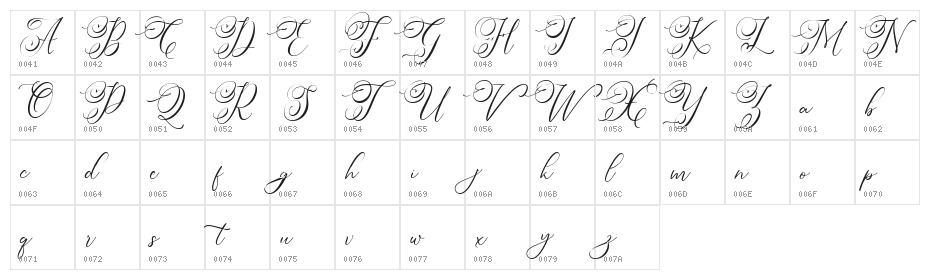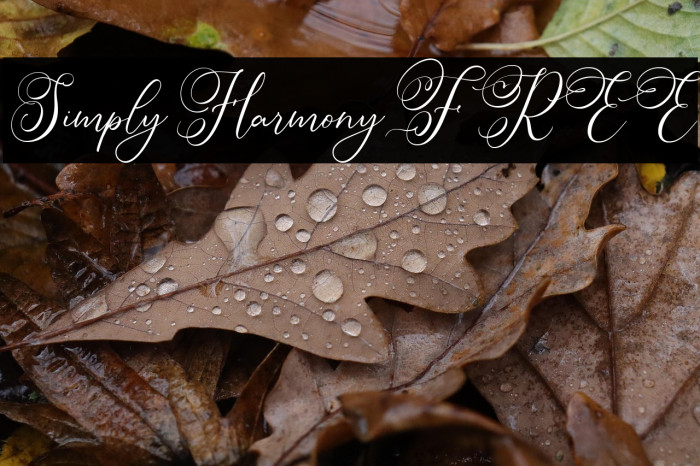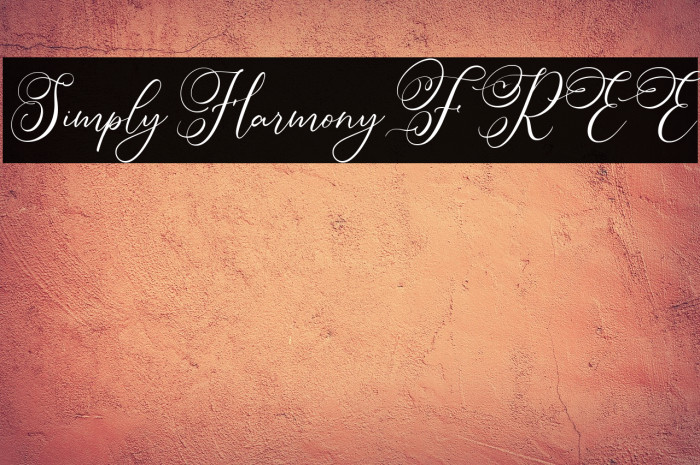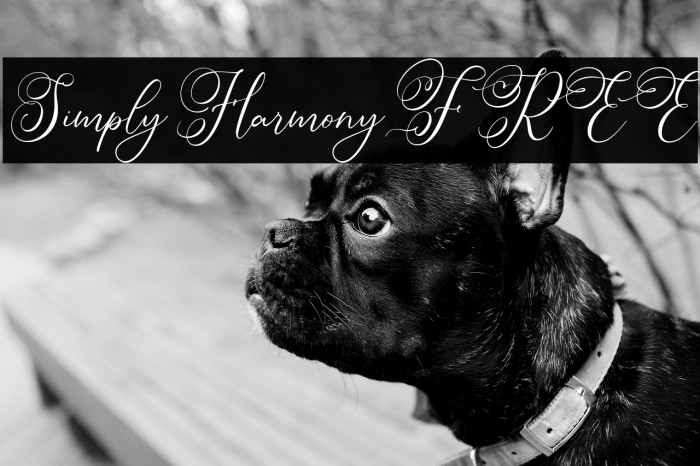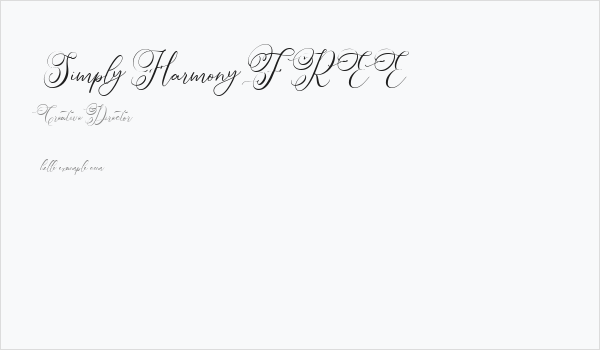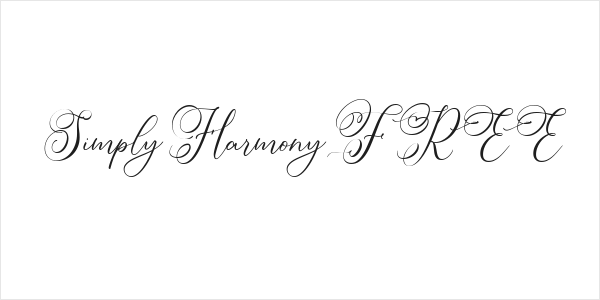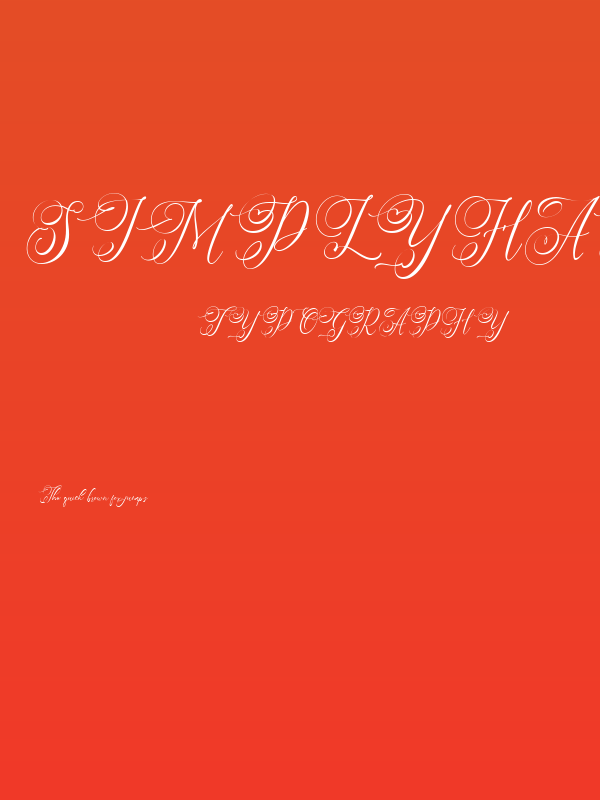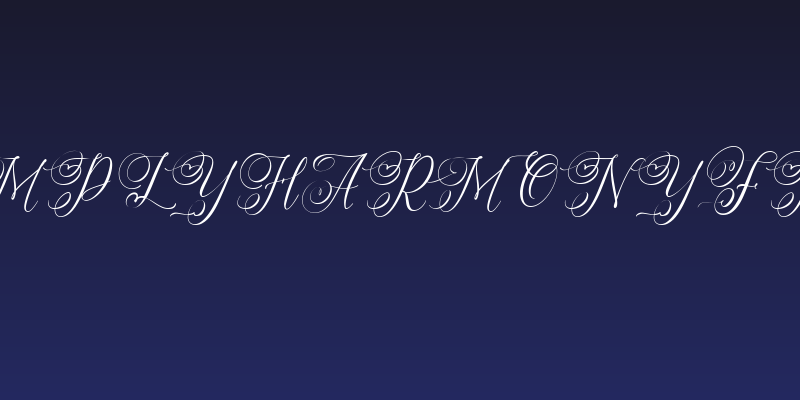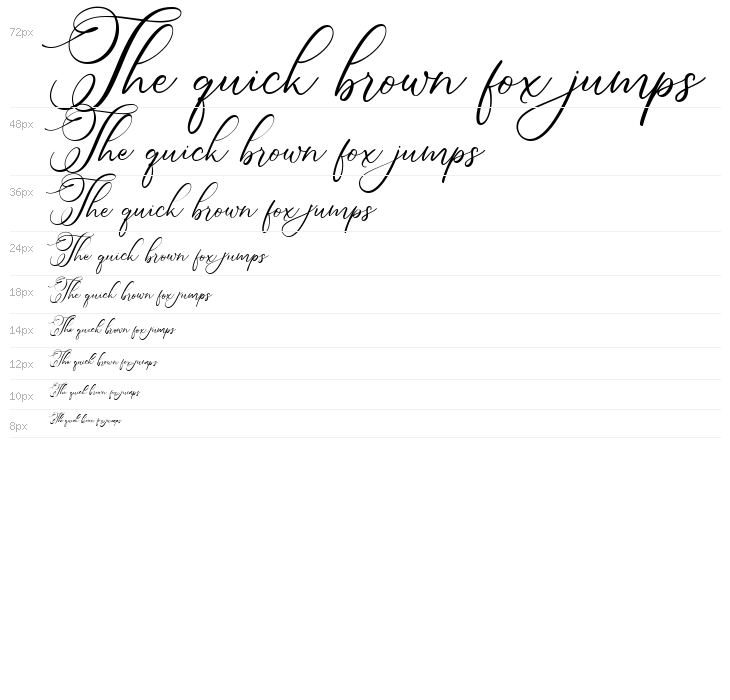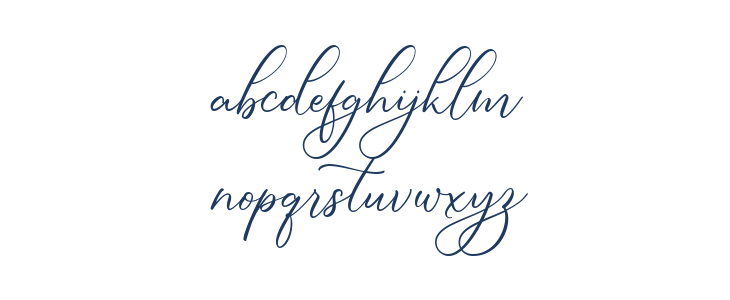
Simply Harmony FREE Font
Simply Harmony FREE Description
This elegant script font features intricate, flowing lines and a sophisticated style. The uppercase letters are adorned with delicate swirls and flourishes, giving them a decorative and ornate appearance. The lowercase letters maintain a smooth, cursive flow, enhancing readability while retaining an artistic flair. The font's overall design is reminiscent of classic calligraphy, making it suitable for formal and elegant applications. Its intricate details and graceful curves make it ideal for projects that require a touch of refinement and sophistication.
| Proposed Projects | Perfect for wedding invitations, elegant branding, high-end product packaging, and decorative signage. |